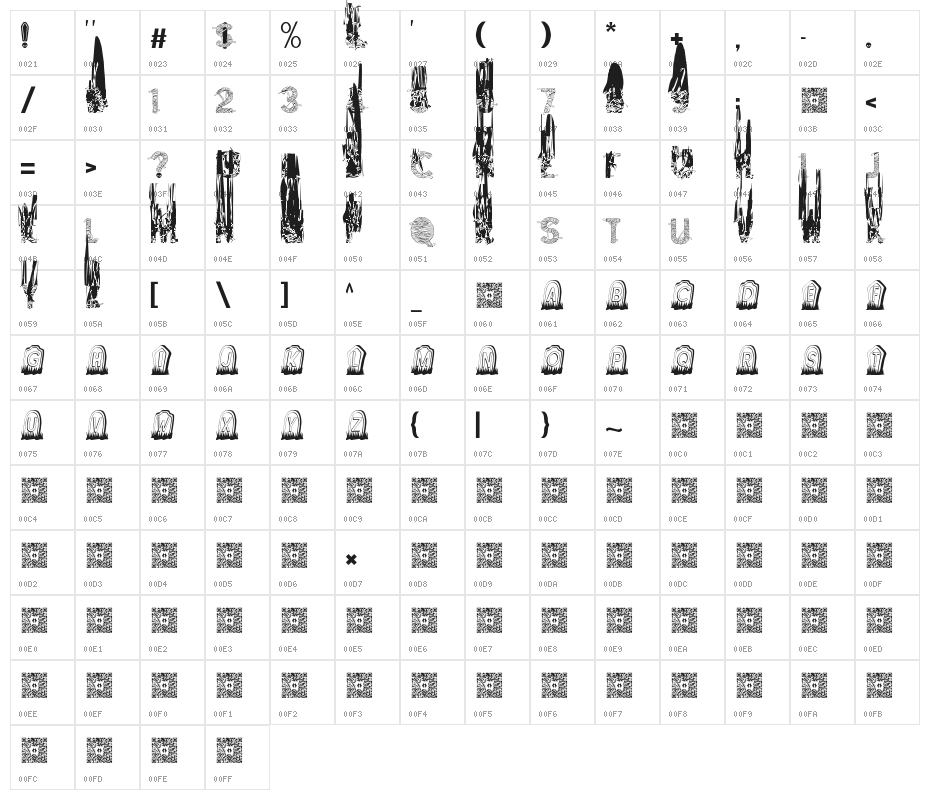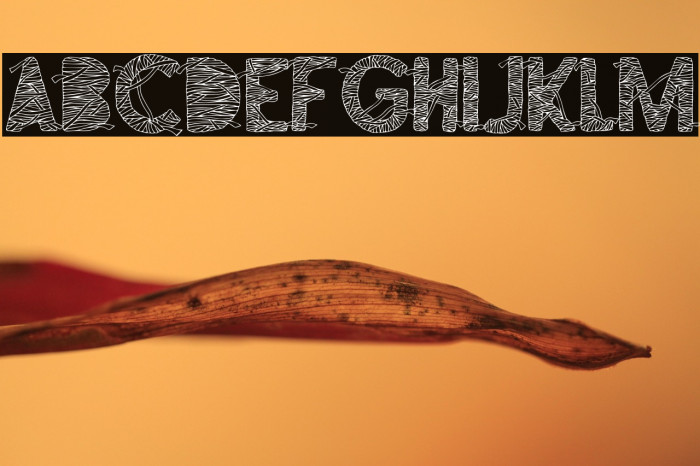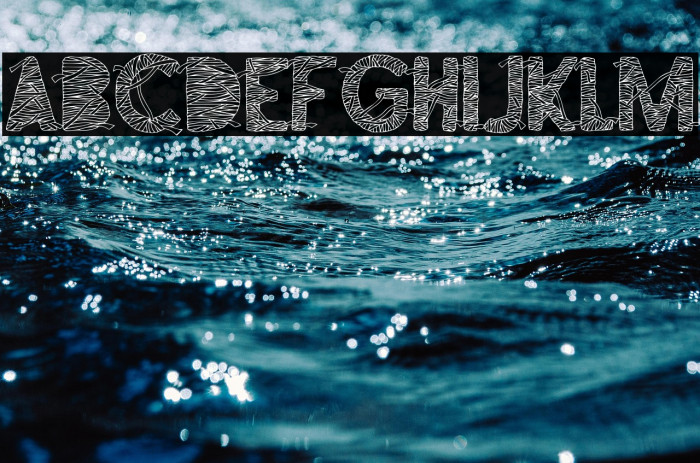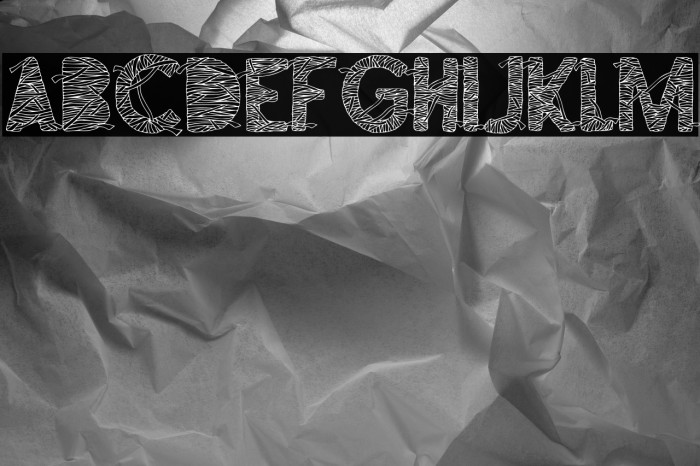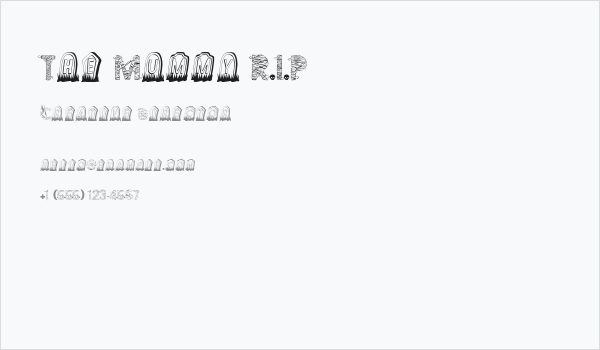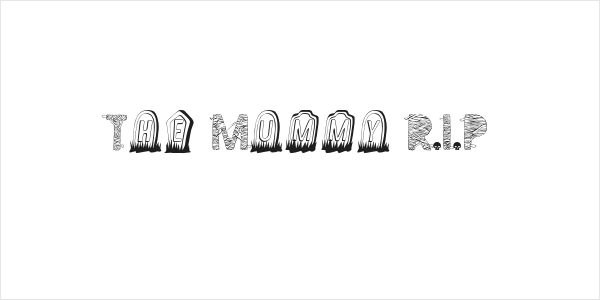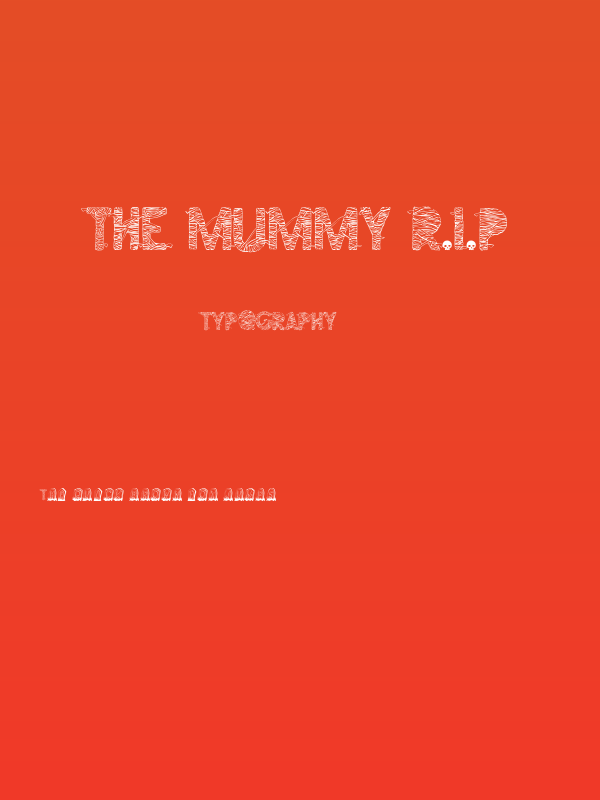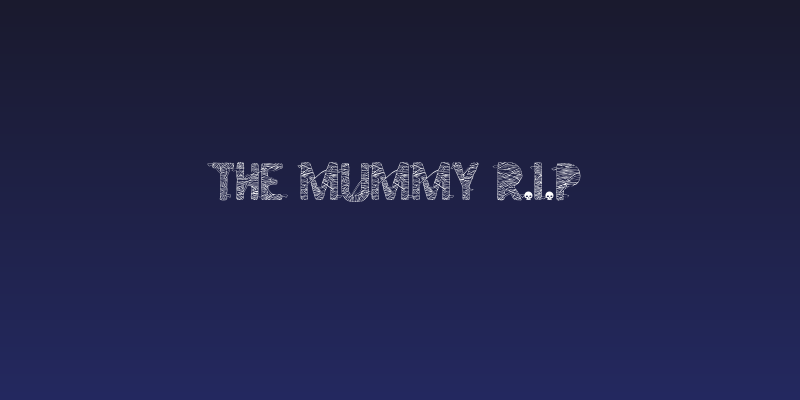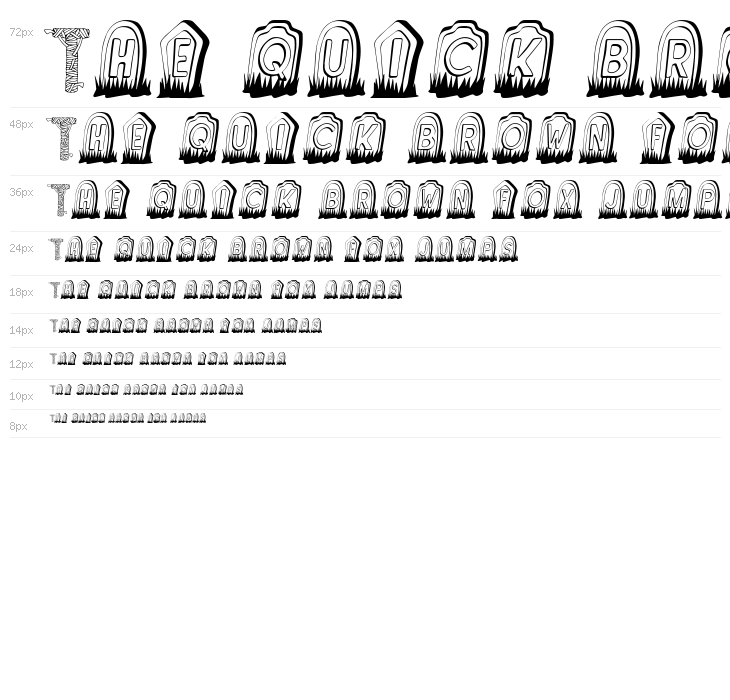
The Mummy R.I.P Font
The Mummy R.I.P Description
This font exudes a spooky and eerie vibe, perfect for Halloween-themed projects. The uppercase letters resemble mummified bandages, giving a textured and layered appearance. The lowercase letters are encased in tombstone-like shapes, adding to the haunted aesthetic. Numbers and special characters maintain the same wrapped and mysterious style, ensuring consistency across all glyphs. The font's unique design makes it ideal for creating eye-catching headlines, posters, and invitations that require a touch of the macabre.
| Use Case | Headlines, Posters, Invitations |
| Proposed Projects | Ideal for Halloween posters, haunted house invitations, themed party flyers, and spooky merchandise designs. |